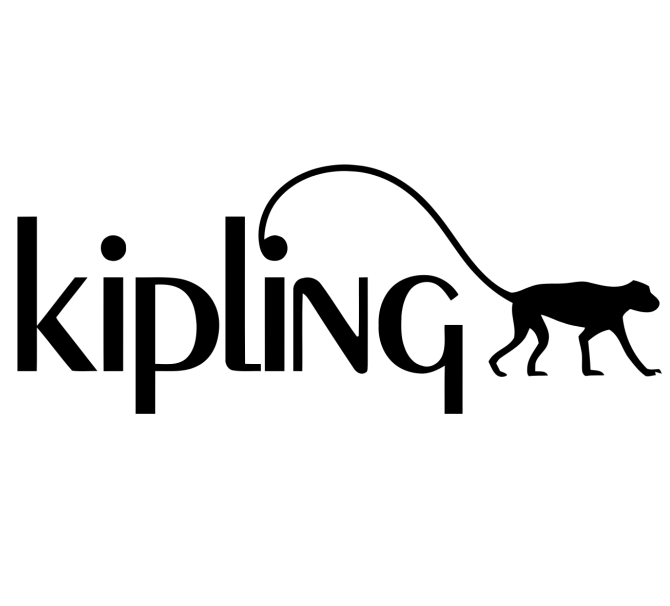
Kipling Font
ApparelKipling is a fashion and lifestyle brand that was founded in Belgium in 1987. The brand is known for its colorful, lightweight, and durable bags, luggage, accessories, and clothing. Kipling's signature design feature is the monkey keychain that is included with most of their products.
The Kipling logo uses a constructed sans-serif display font called Peignot Light designed by Adolphe Mouron Cassandre in 1937. The main feature of the Peignot typeface is the "multi-case" lettering which combines small capitals and traditional lowercase letters.